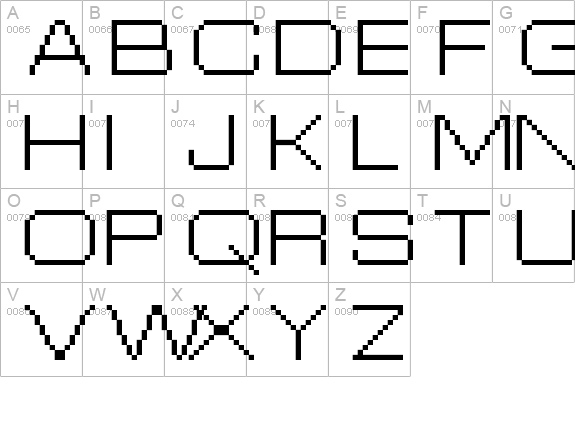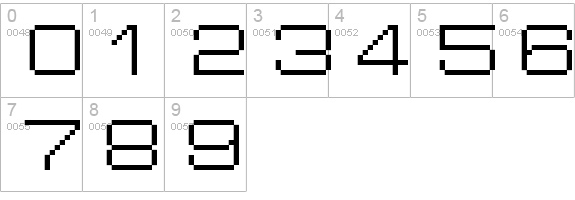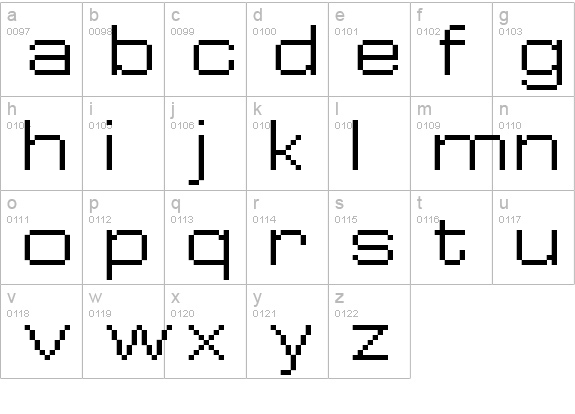
FFF Cosmos Condensed is a distinctive, condensed-width variant in the FFF typeface family \xE2\x80\x94 well suited to design and typography projects.
The FFF Cosmos Condensed font is a sleek and modern typeface that exudes sophistication and style. Its condensed design makes it perfect for creating elegant and professional-looking designs. The font features clean lines and sharp angles, giving it a contemporary look that is perfect for a wide range of projects. What's even better is that the FFF Cosmos Condensed font is available for free download at FontsMarket.com! This means that you can easily add this stylish font to your collection without having to spend a dime. Whether you're working on a branding project, designing a website, or creating eye-catching graphics, the FFF Cosmos Condensed font is sure to make your work stand out. Download it today and elevate your designs with this stunning typeface.